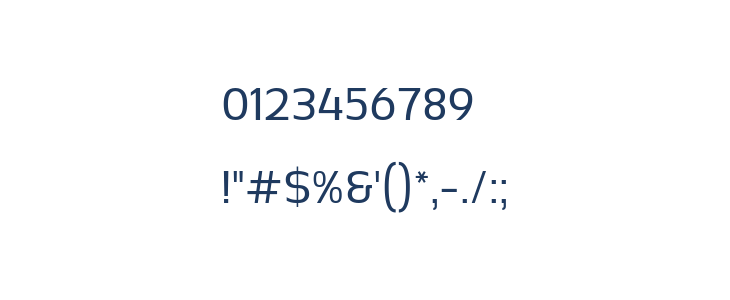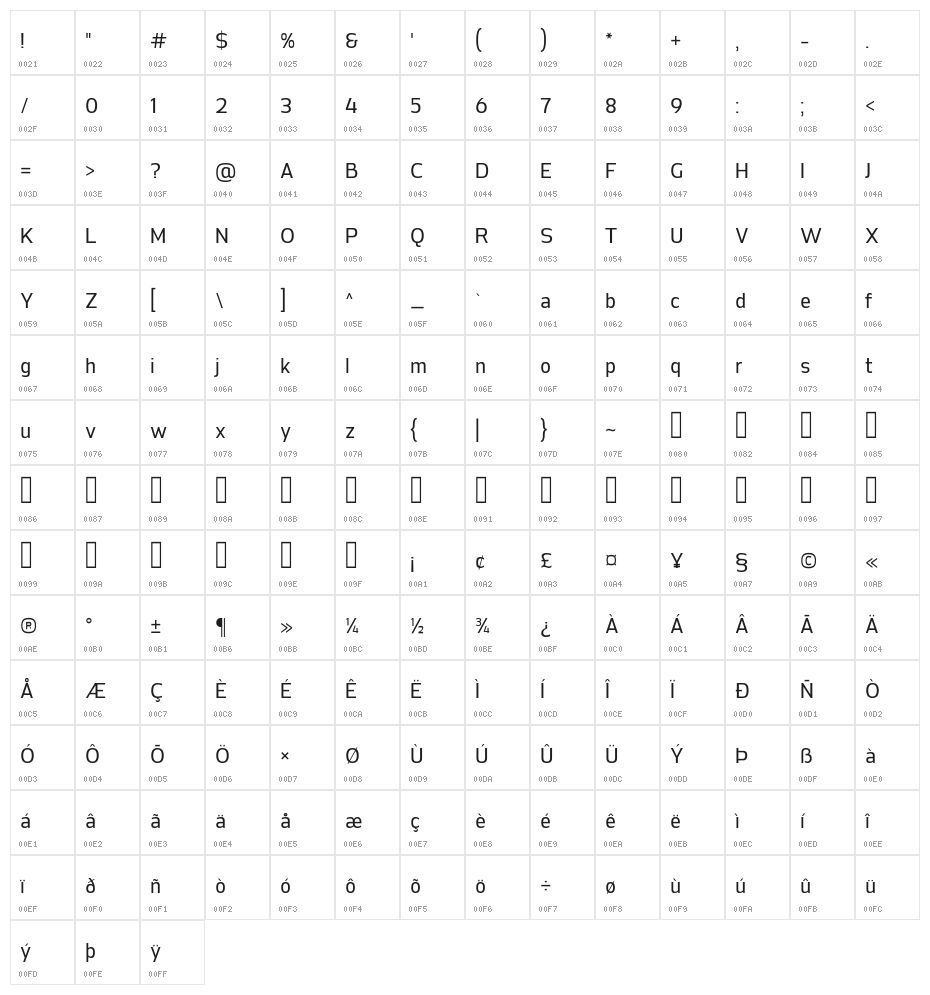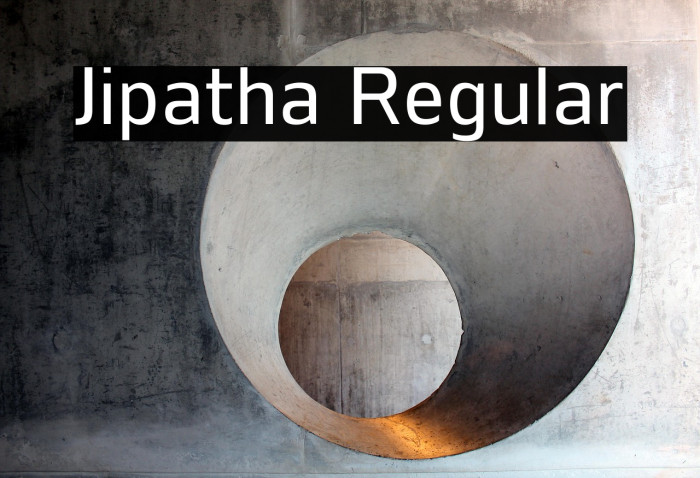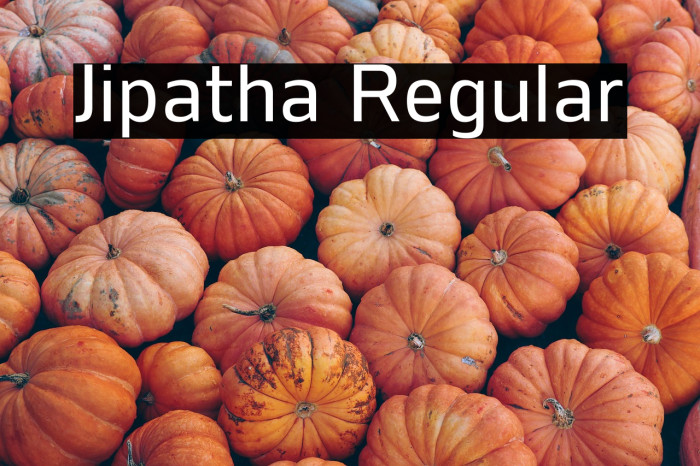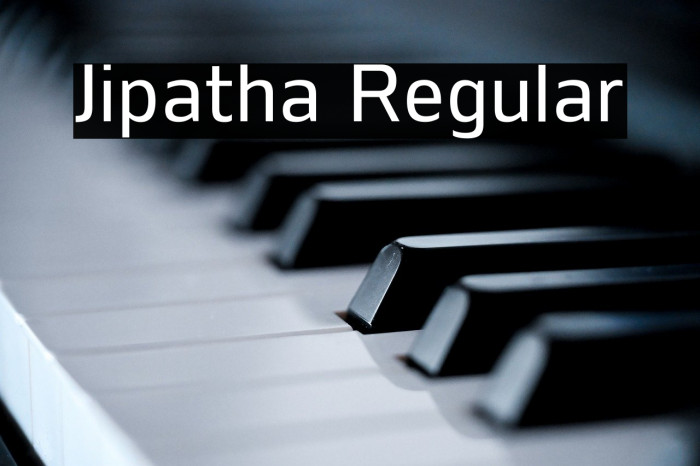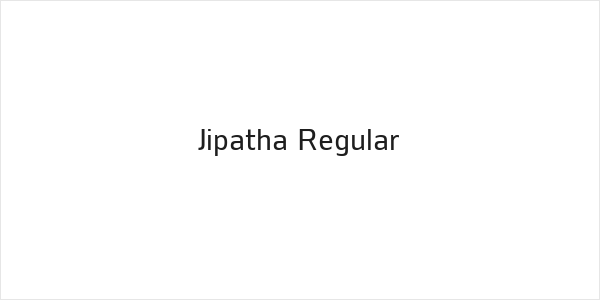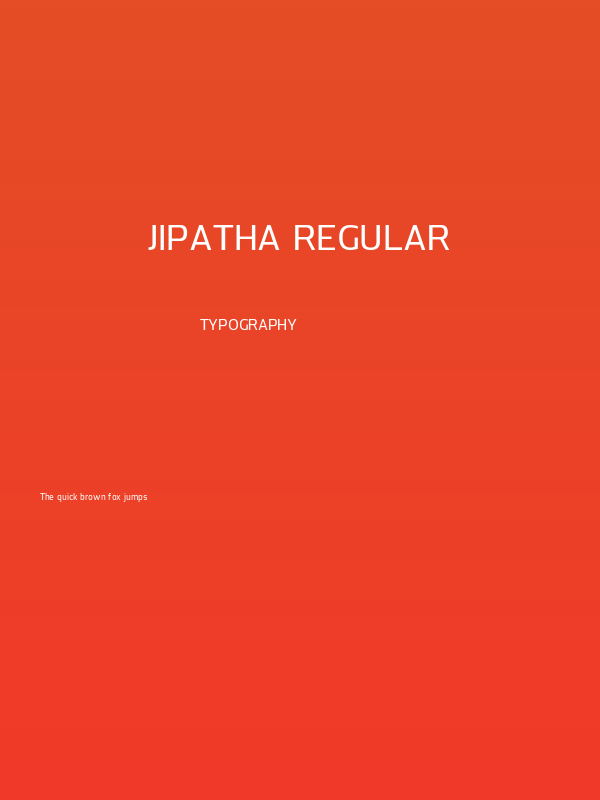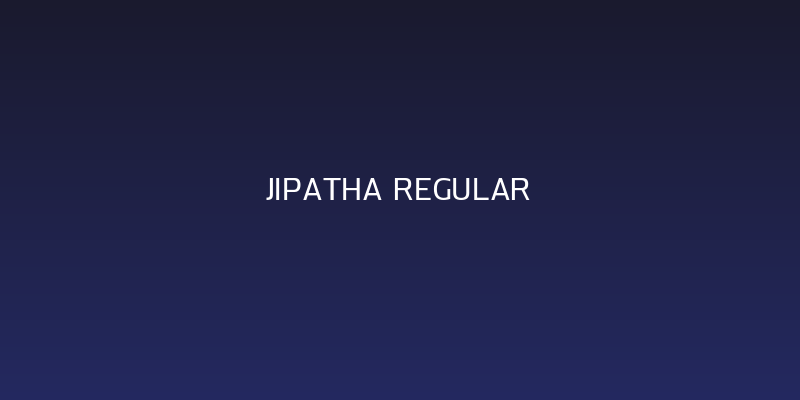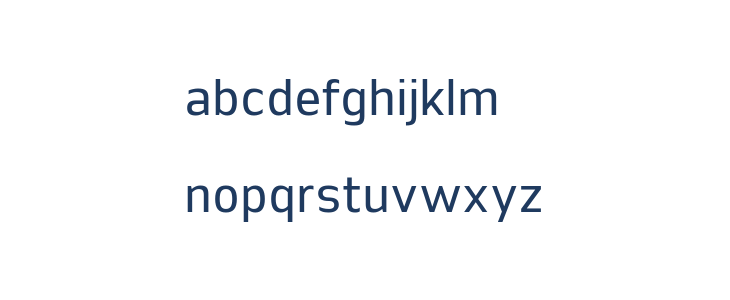
Jipatha Regular Font
Jipatha Regular Description
This font features a clean and modern sans-serif design, characterized by its simplicity and clarity. The letters are evenly spaced with a consistent stroke width, providing a balanced and harmonious appearance. The uppercase and lowercase characters are well-proportioned, making it highly legible. The numerals are straightforward and align well with the overall style, while the special characters are distinct and easily recognizable. This font's design is versatile, making it suitable for a wide range of applications.